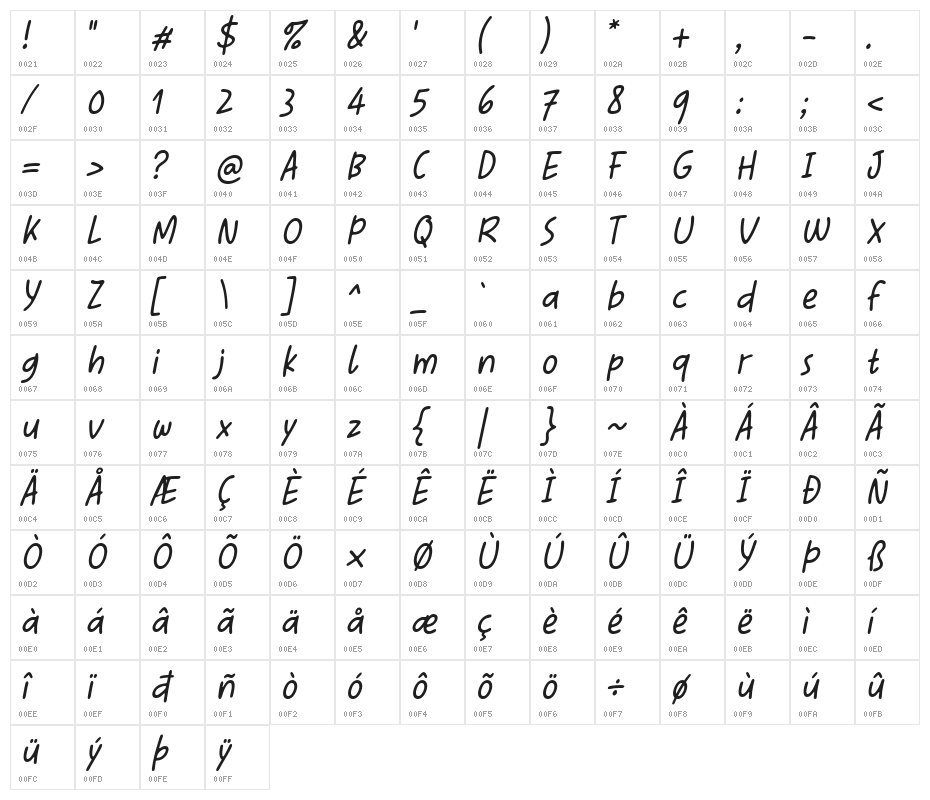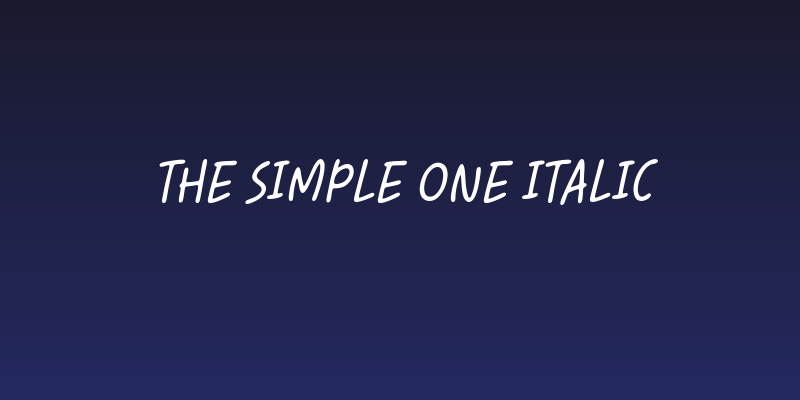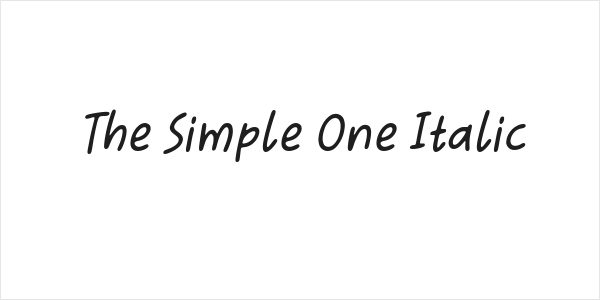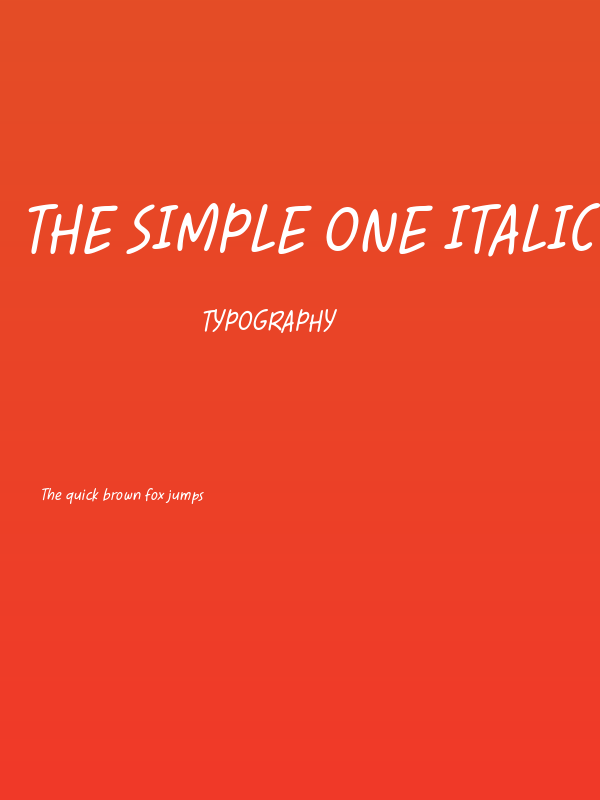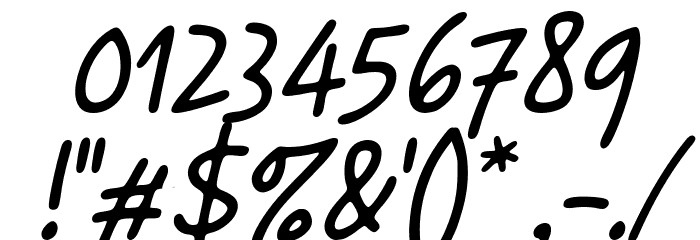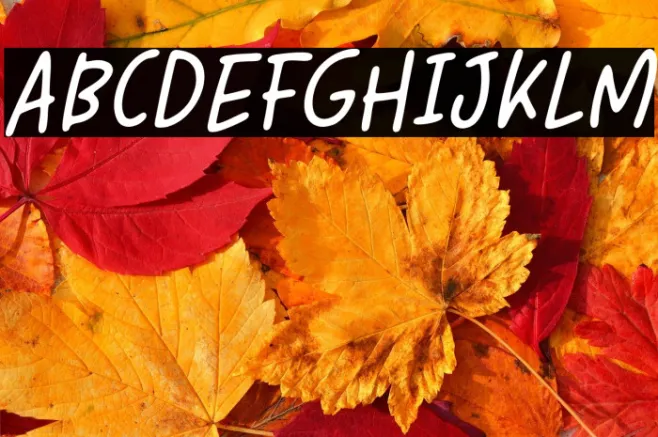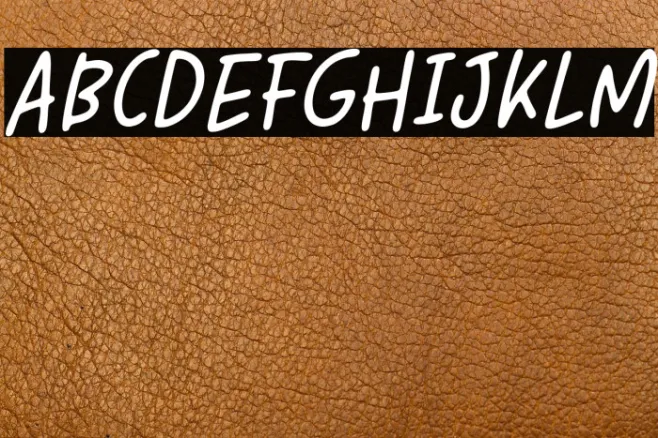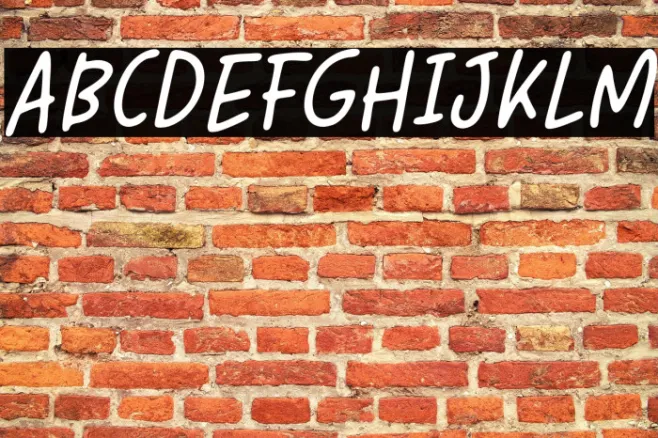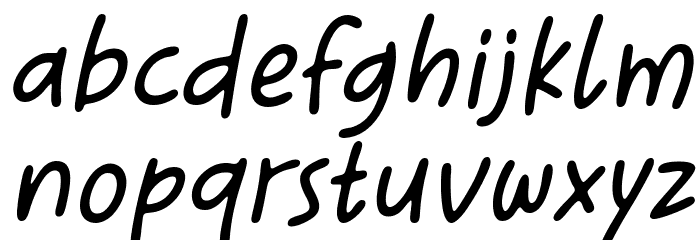
The Simple One Italic Font
The Simple One Italic Description
This font features a casual and friendly handwritten style with a slight slant, giving it an italic appearance. The characters are smooth and rounded, with a consistent stroke width that maintains readability while adding a personal touch. The uppercase and lowercase letters are well-proportioned, and the numerals are clear and distinct. Special characters are included, enhancing its versatility. The overall look is approachable and informal, making it suitable for projects that require a personal or creative flair.